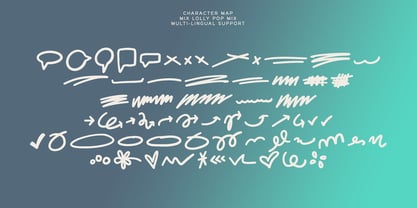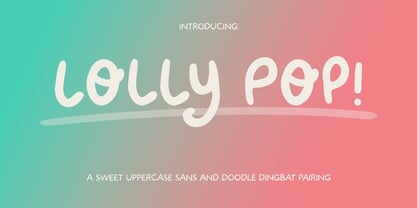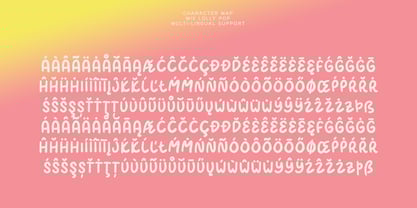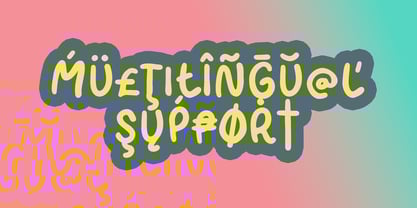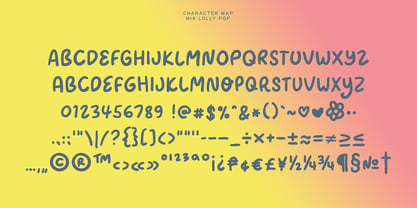
Lolly Pop
Die Schriftfamilie Lolly Pop wurde von Mikko Sumulong entworfen und von Mix Fonts veröffentlicht. Lolly Pop enthält 2 Stile und Familienpaketoptionen.
LOLLY POP is a playful, fun, and completely handwritten sans serif font that’s perfect for designers, small businesses, social media managers, and both Canva and Adobe users. This quirky, bouncy typeface is fully uppercase, yet features distinct upper and lowercase letters, making it ideal for adding a touch of personality to your projects. LOLLY POP is perfect for social media graphics, greeting cards, packaging (especially food packaging), book covers, posters, name labels, stickers, and more.
To sweeten the deal, LOLLY POP comes as a duo bundle with the LOLLY POP MIX dingbat! This delightful addition includes 62 doodles—hearts, Xs, cross outs, underlines, circles, arrows, and squiggles—corresponding to A-Z, a-z, and 0-9. Whether you’re looking to add some fun, curly, and handwritten charm to your designs or make your text pop with creative doodles, this bundle has you covered.
The font’s multilingual support makes designing with text in other languages simpler and easier, helping you connect with a global audience.
Designer: Mikko Sumulong
Foundry: Mix Fonts